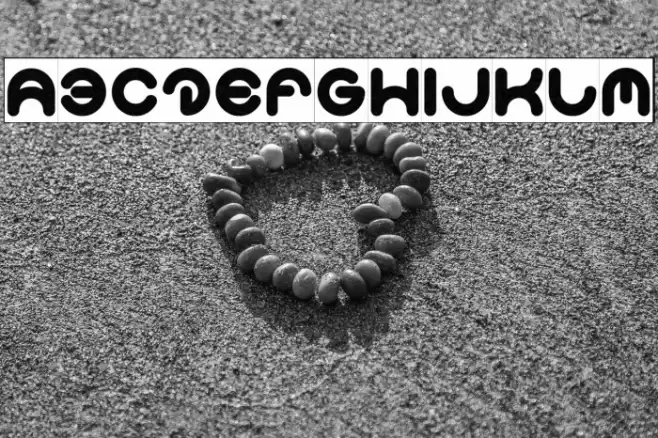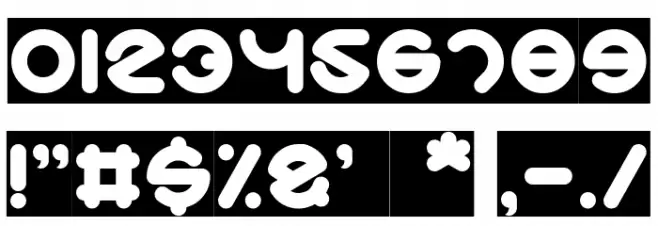
Smiley Turtle-Inverse Font
Smiley Turtle-Inverse Description
This font features a playful and bold design with rounded, bubble-like characters that give it a unique and eye-catching appearance. The letters are characterized by their thick, consistent strokes and smooth curves, creating a sense of fun and whimsy. The font maintains a uniform weight throughout, with each character enclosed in a square, enhancing its modern and geometric style. The numbers and special characters follow the same design principles, ensuring a cohesive look across all glyphs. This font's distinct style makes it stand out, perfect for creative and informal projects.
A playful, bold font with rounded, bubble-like characters and a modern geometric style from Uncategorized fonts.